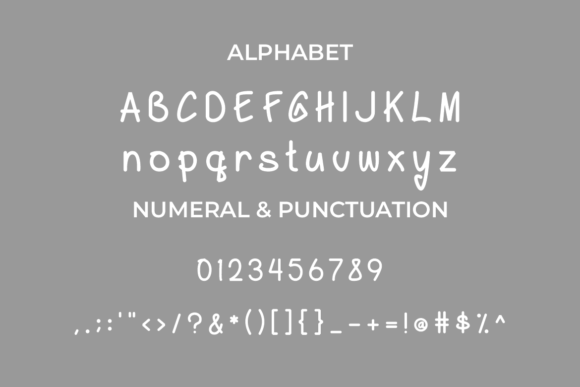
Introduction to Resseh Font
Enter the Resseh Font, a fun and quirky handwritten font that’s sure to add a touch of whimsy to any crafty project. With its unique and playful style, Resseh Font is the perfect design resource for anyone looking to add a little extra flair to their creative endeavors. Whether you’re working on a high-quality design project or simply want to add a personal touch to your social media posts, Resseh Font is a valuable addition to your design toolkit.
- Features a unique, modern design with a mix of clean lines and subtle details, making it perfect for a wide range of creative applications.
- Includes a comprehensive character set, covering a wide range of languages and scripts, making it a versatile design resource.
- Designed to be highly legible, even at small font sizes, making it an excellent choice for digital projects, such as websites, mobile apps, and e-books.
Honest Review: Resseh Font
As a designer, I’m always on the lookout for high-quality fonts to enhance my creative projects. Recently, I came across the Resseh Font, and I’m excited to share my honest review with you.
- ✨ The font features a transparent background, allowing for seamless integration with various design elements.
- ✨ The high-quality design of the font makes it perfect for use in creative projects, from typography-based designs to digital products.
- ⚠️ The font’s character set is limited, which may not be suitable for projects requiring a wide range of characters or languages.
- ⚠️ The font’s design, while beautiful, may not be suitable for use in formal or conservative contexts.
Overall, I’m impressed with the Resseh Font, and I would recommend it to designers working on creative projects that require a high-quality, modern font. While it may have some limitations, its free download option and transparent background make it a valuable design resource.
The Resseh Font is a high-quality design resource perfect for creative projects that require a unique and stylish touch. With its transparent background, this font can be easily integrated into various design tools.
The Resseh Font is perfect for a variety of creative projects, including:
- Branding
- Marketing materials
- Print design